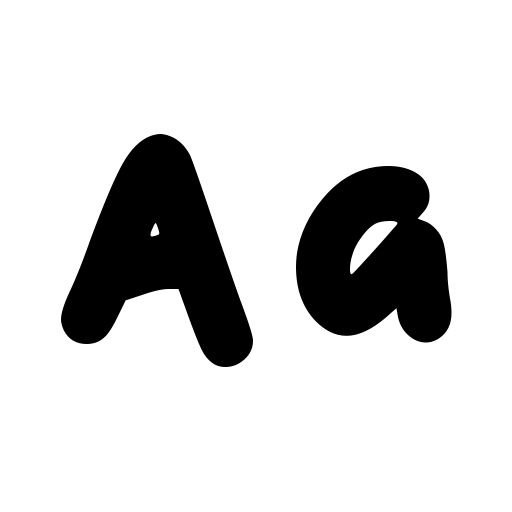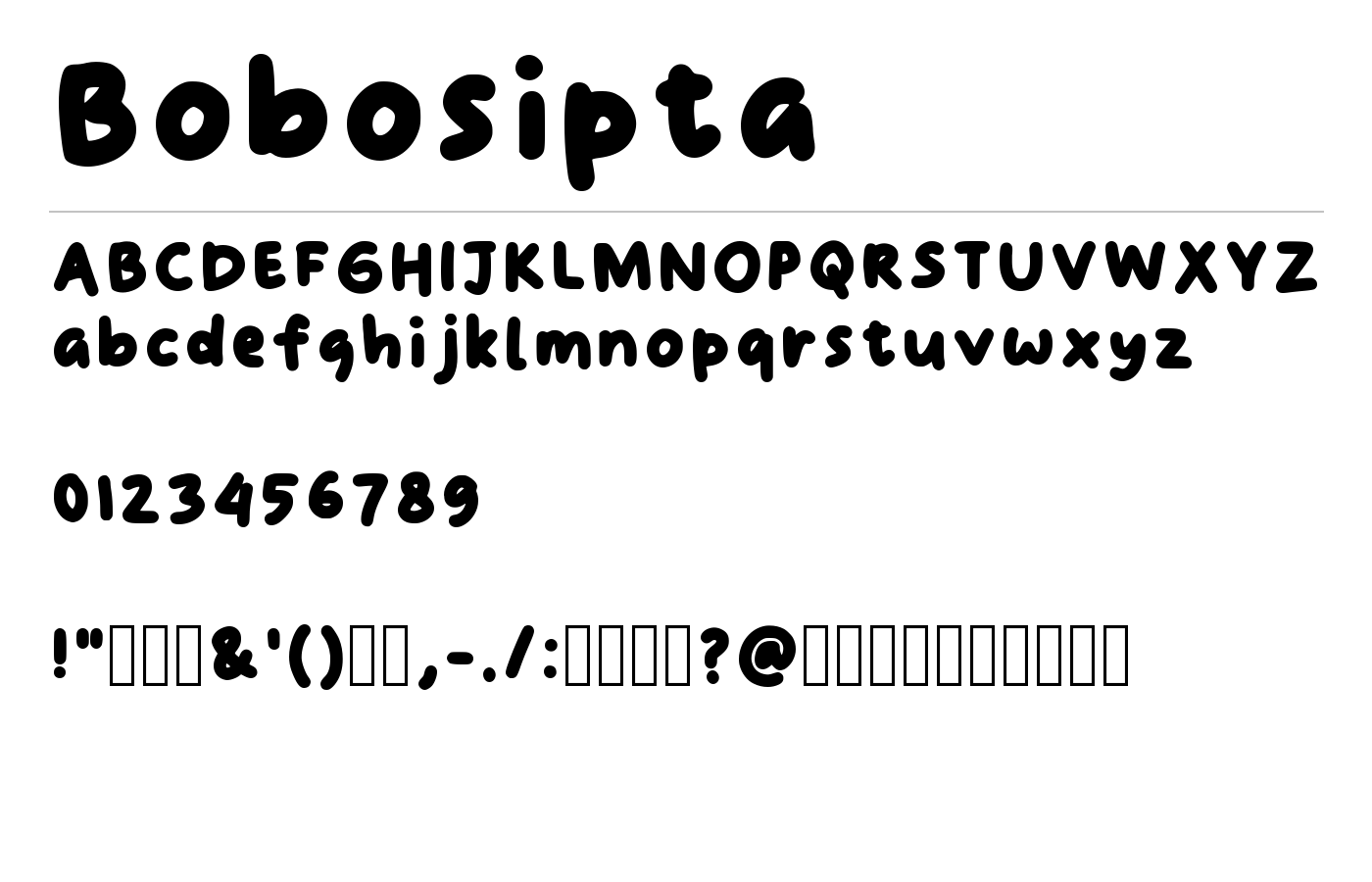
Bobosipta is a playful and rounded sans serif font with a bold, chunky weight and a friendly, hand-drawn feel. Its soft, irregular shapes and high x-height make it approachable and lively, perfect for informal designs, children's materials, or fun branding projects. This font works best in headlines, logos, or packaging where a warm, casual vibe is desired.
Bobosipta Font
About Bobosipta Font